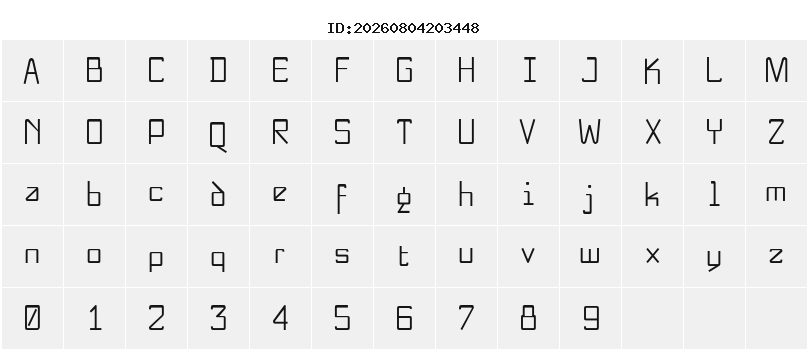
NewNerdish Preview
• Font Name: NewNerdish
• Font Style: Plain
• Font ID: Macromedia Fontographer 4.1.3 NewNerdish Plain
• Full Font Name: NewNerdish Plain
• Version: Macromedia Fontographer 4.1.3 7/8/96
• PostScript Name: NewNerdishPlain
• Character Count: 237
About NewNerdish.ttf
NewNerdish.ttf is a modern, elegant sans-serif font designed for ultimate readability and visual harmony. Perfect for branding, headlines, web design, and print materials.